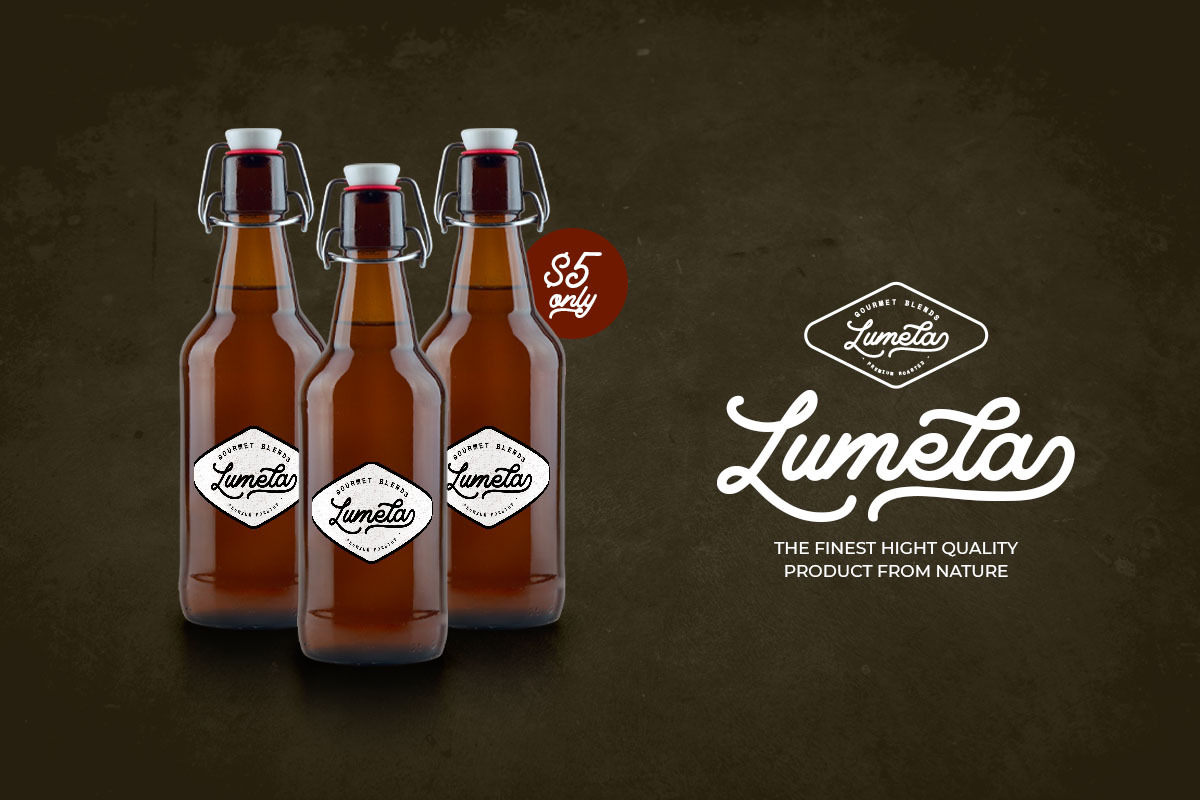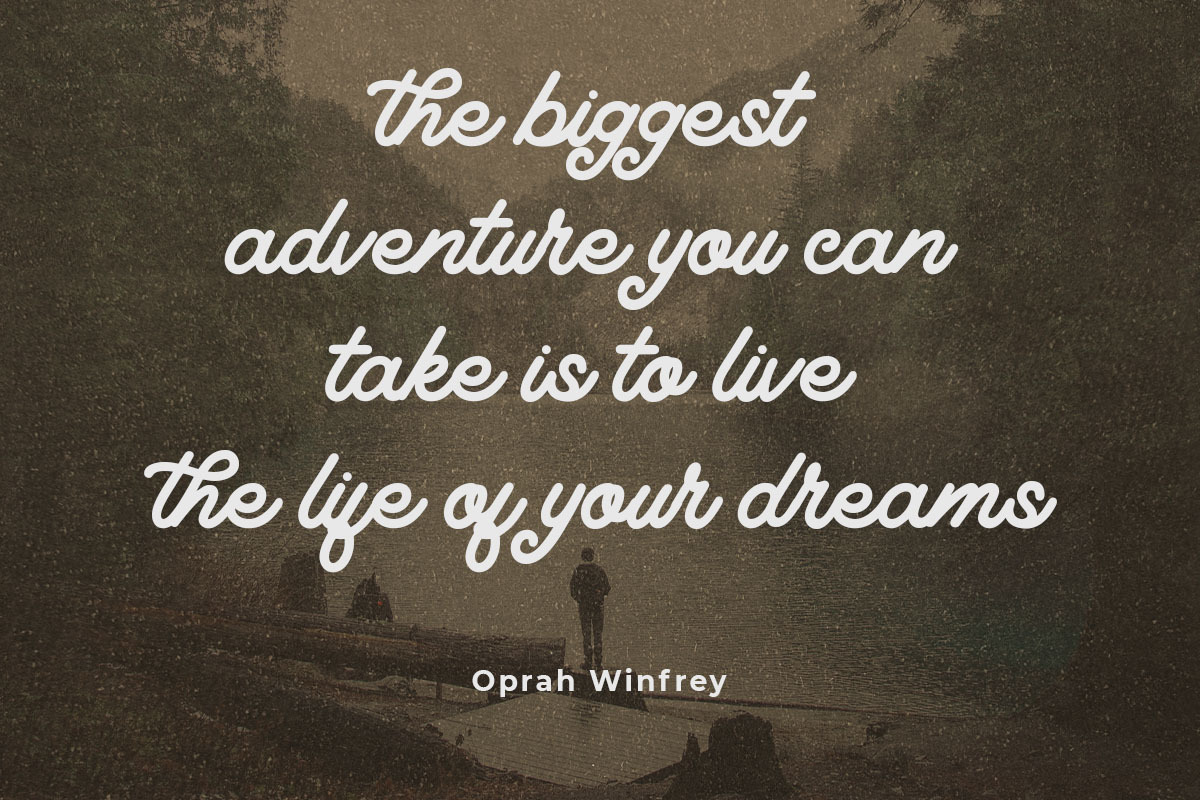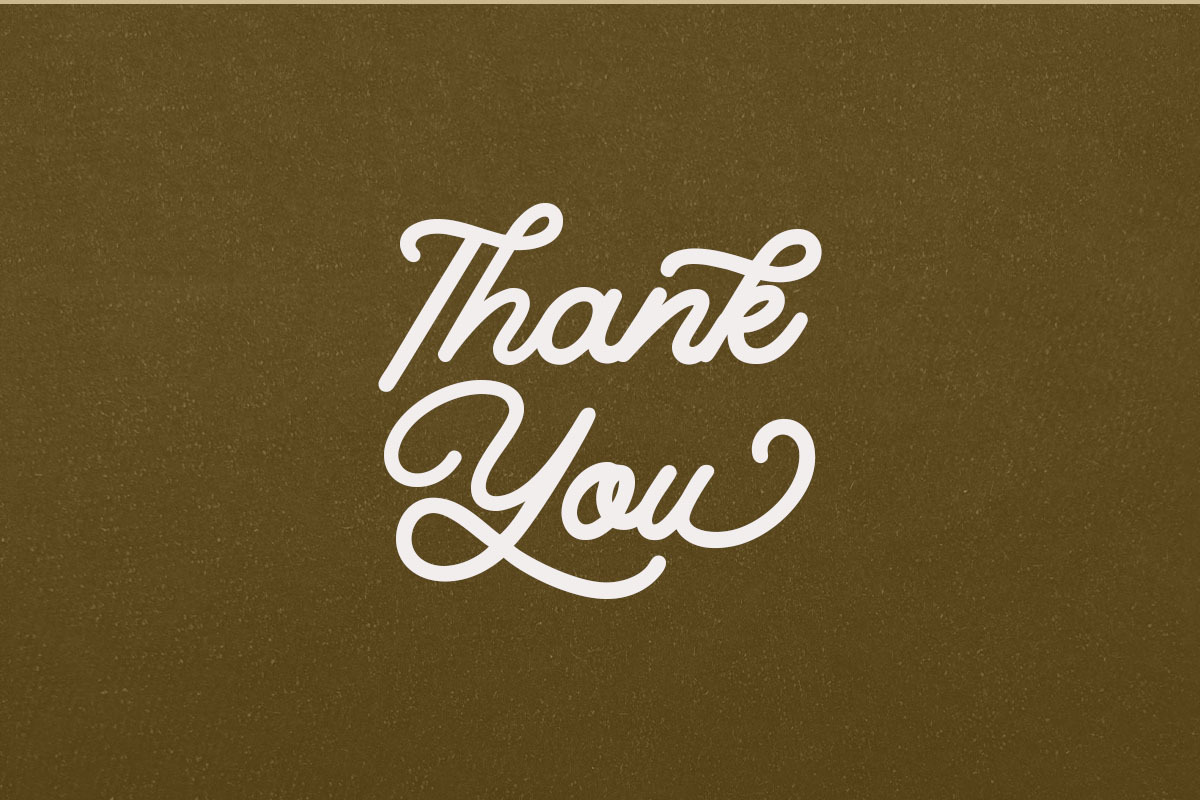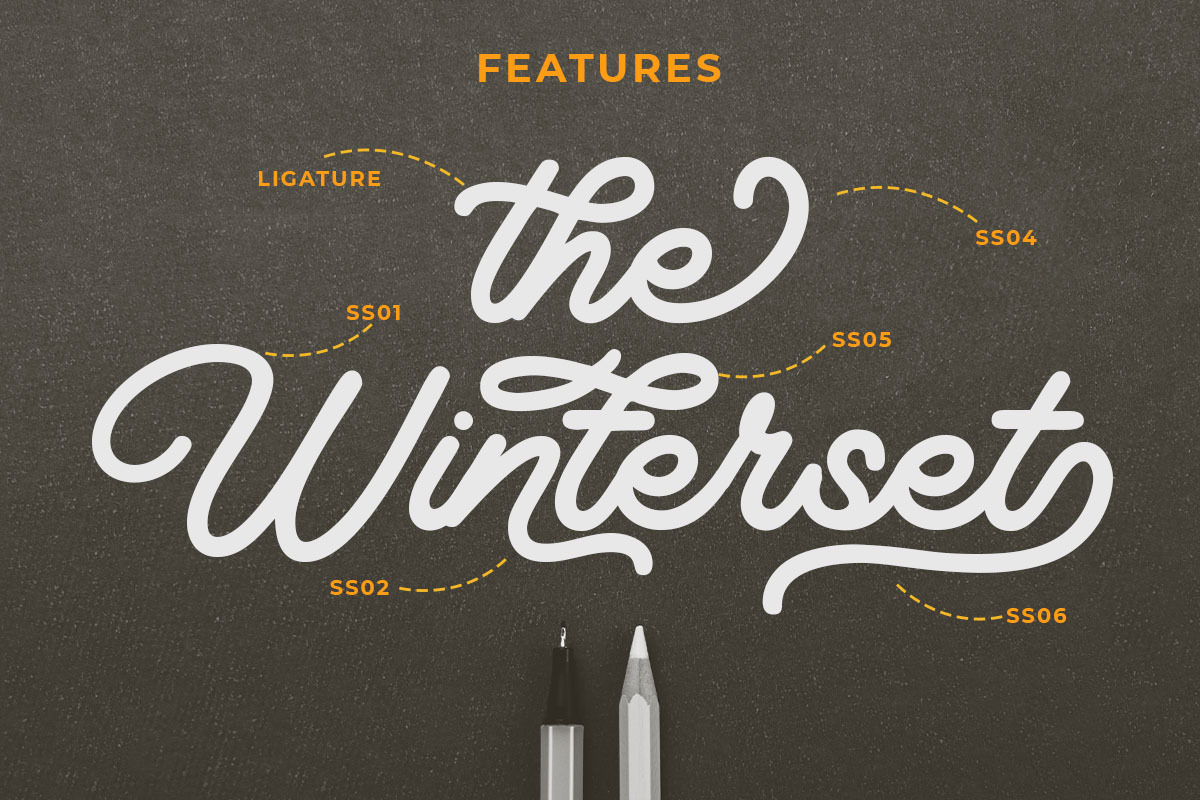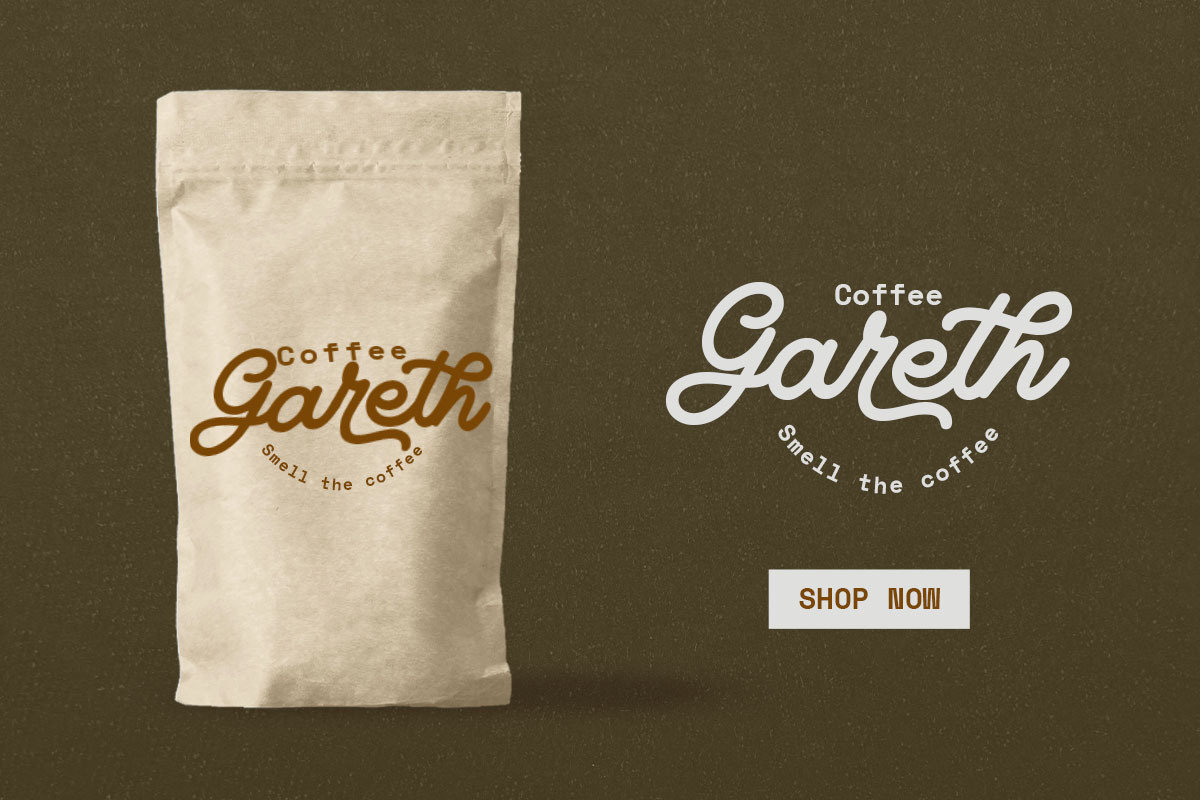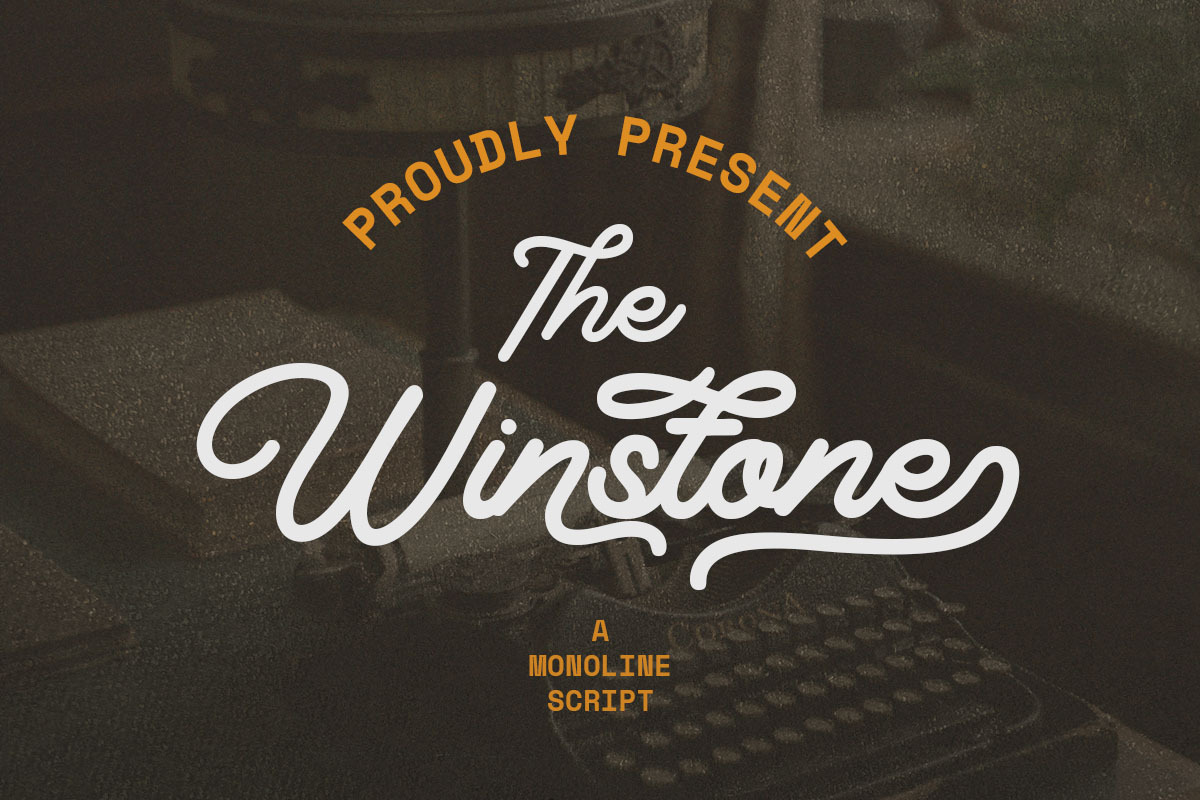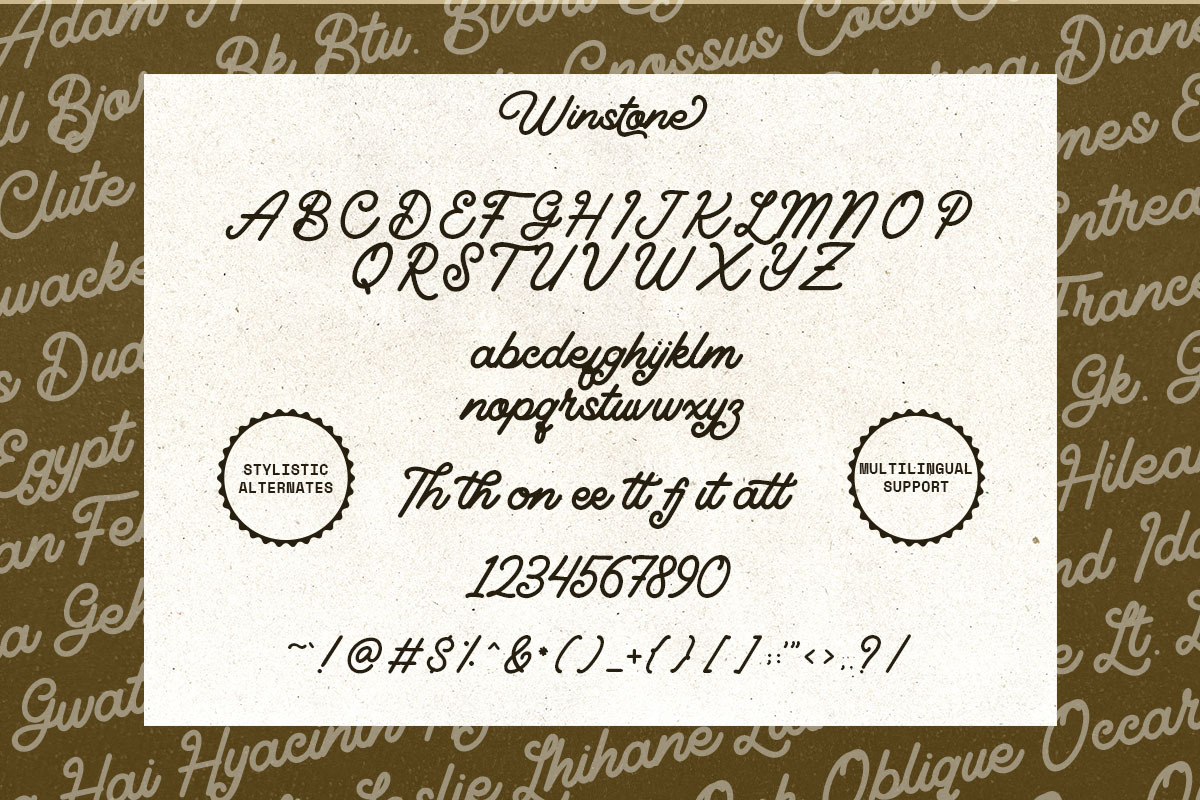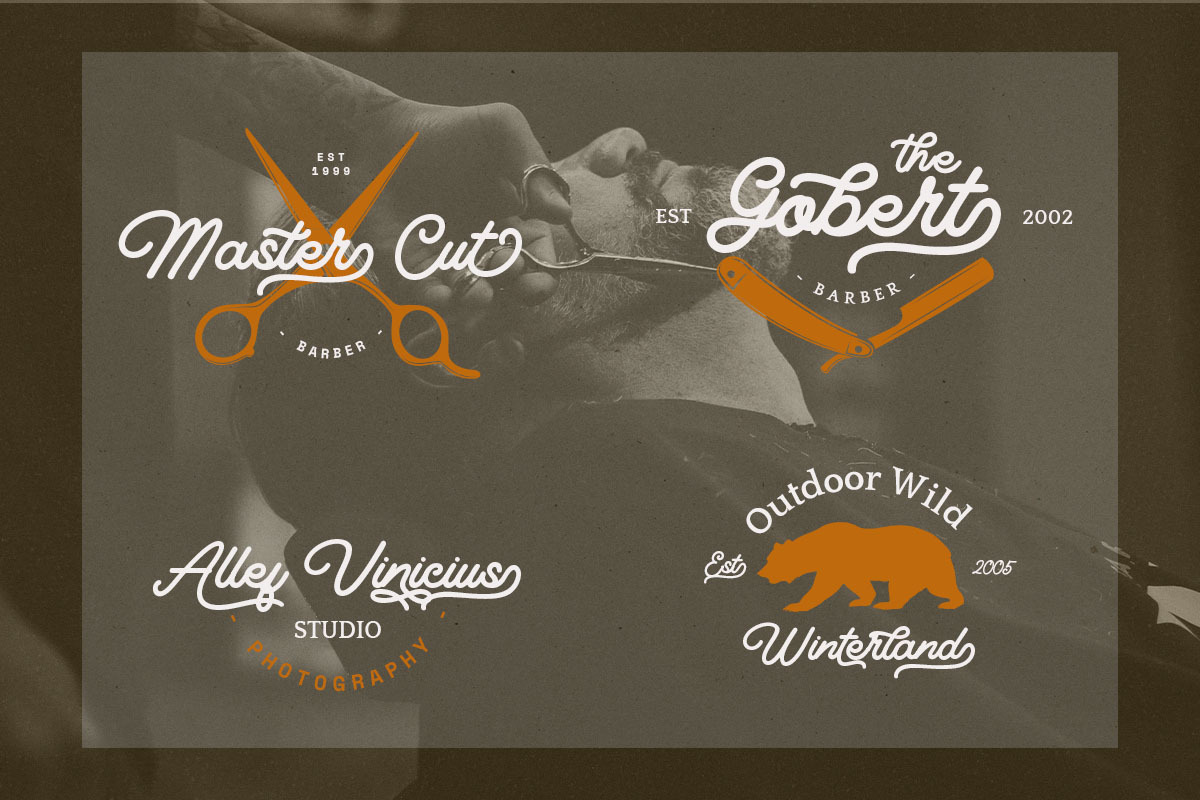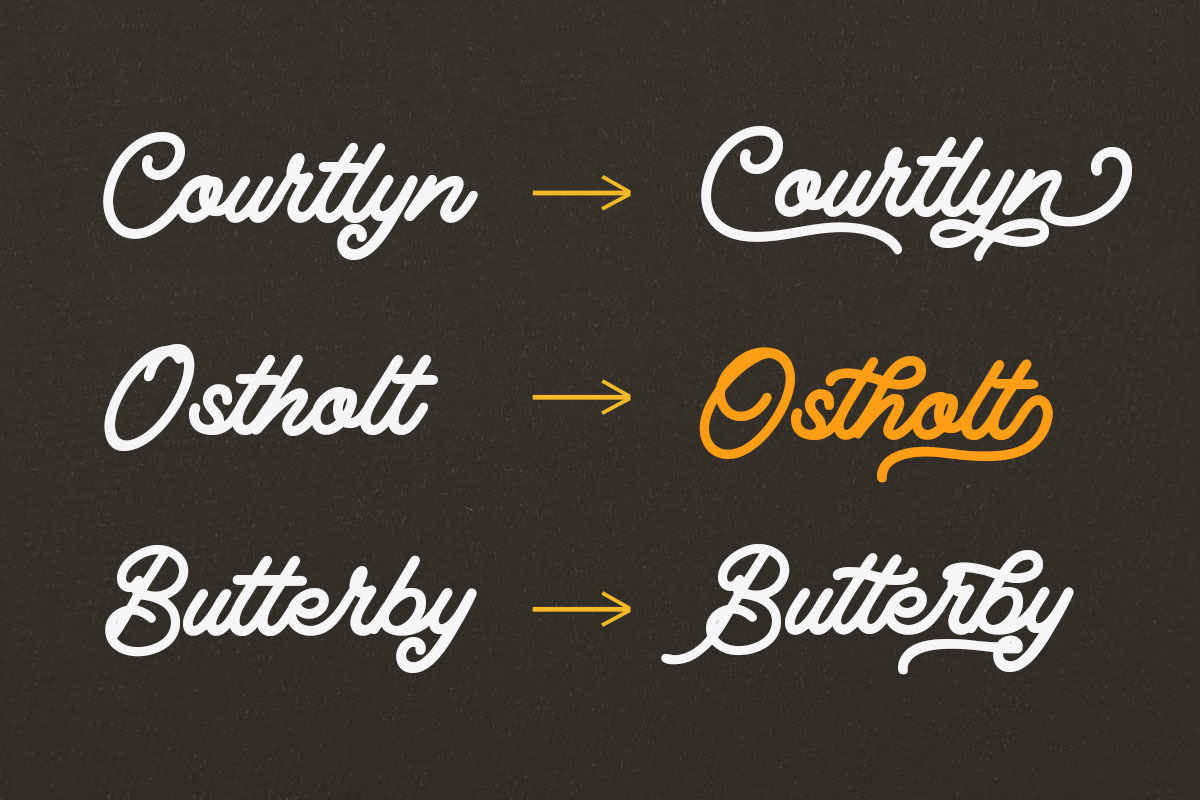
Winstone - Elegant Script Font
Meet Winstone Monoline, a sleek and elegant script font designed to bring a touch of sophistication and charm to any creative project. With its smooth monoline strokes and flowing letterforms, this font is perfect for branding, invitations, packaging, and more.
Crafted with precision, Winstone Monoline exudes a refined yet casual elegance. Its balanced curves and consistent stroke weight make it highly legible while maintaining a stylish and modern feel. Whether you’re working on wedding stationery, logos, or high-end packaging, this font adds a personal and polished touch to your designs.
- Smooth monoline script – Elegant and timeless design
- Flowing, handcrafted letterforms – Adds a personal touch
- Ligatures & alternates included – Enhance customization options
- Multilingual support – Covers multiple languages
- Ideal for branding, invitations, packaging, and social media